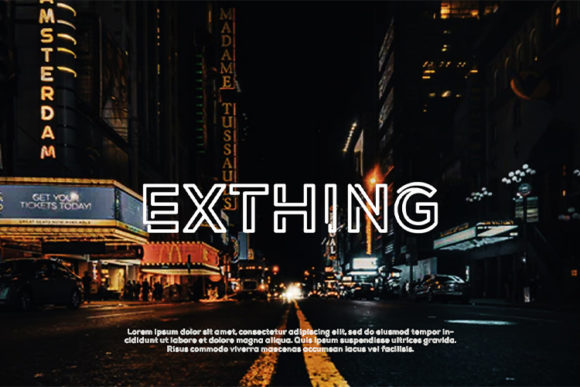
In a world saturated with mundane and uninspired fonts, Exthing emerges as a beacon of creativity, a font that transcends the boundaries of ordinary and invites you into a realm of elegance and sophistication. Meticulously crafted by the visionary Nico Muslib, Exthing is a display font poised to revolutionize your visual communication, leaving an indelible mark on all who encounter it.
With its clean lines, balanced proportions, and meticulous attention to detail, Exthing exudes an aura of professionalism and refinement. Its universal appeal shines through in its versatility, effortlessly complementing a wide spectrum of design aesthetics, from the classic and timeless to the contemporary and edgy. Whether you're crafting a heartfelt thank-you note, designing a captivating poster, or creating a visually stunning presentation, Exthing will elevate your message and elevate your design.
Unlike ordinary fonts that blend into the background, Exthing demands attention, commanding it with its impeccable character and undeniable presence. It's a font that makes a statement, leaving a lasting impression on your audience. Whether you're looking to convey warmth and gratitude in a personal letter or deliver a powerful message in a professional setting, Exthing will be your trusted companion, ensuring your words resonate with clarity and impact.
Embrace Exthing, the display font that ignites your creativity and propels your designs to new heights. Let its timeless beauty and captivating charm captivate your audience, leaving them spellbound by the visual masterpiece you've created. Exthing is more than just a font; it's an experience, a journey into the realm of visual artistry where your imagination knows no bounds.